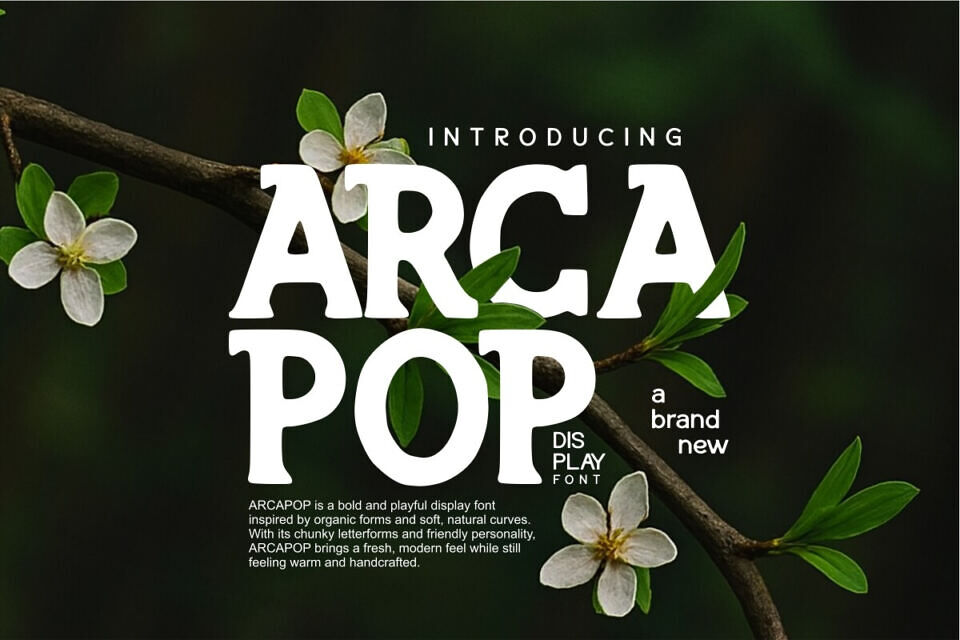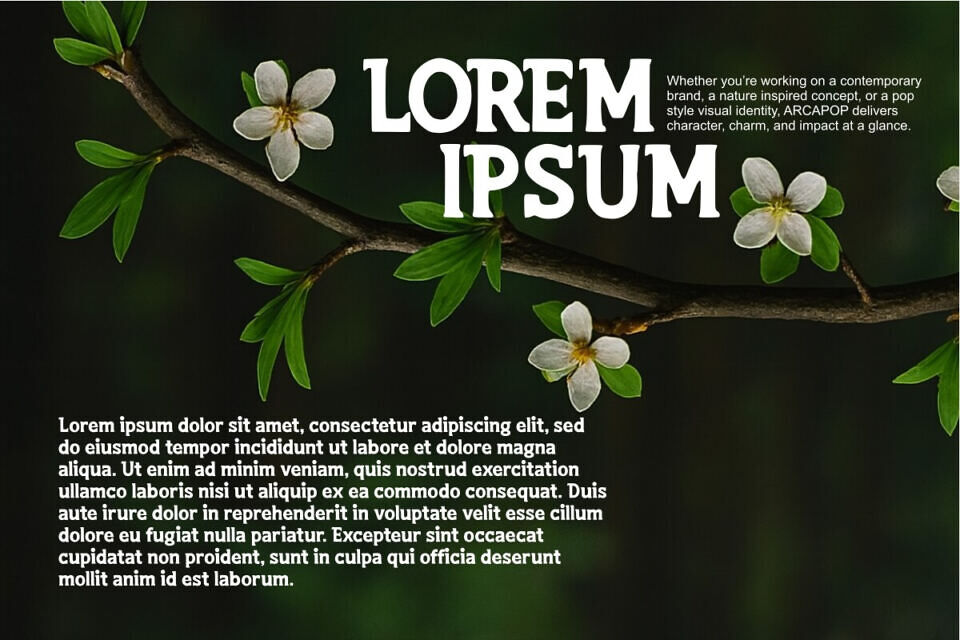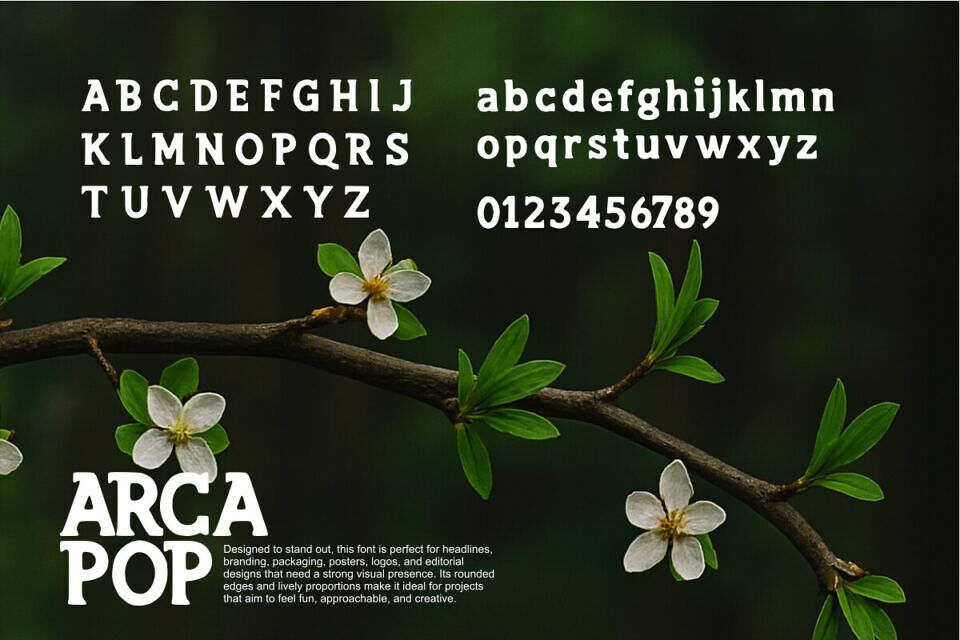
ARCAPOP is a bold and playful display font inspired by organic forms and soft, natural curves. With its chunky letterforms and friendly personality, ARCAPOP brings a fresh, modern feel while still feeling warm and handcrafted.
Designed to stand out, this font is perfect for headlines, branding, packaging, posters, logos, and editorial designs that need a strong visual presence. Its rounded edges and lively proportions make it ideal for projects that aim to feel fun, approachable, and creative.